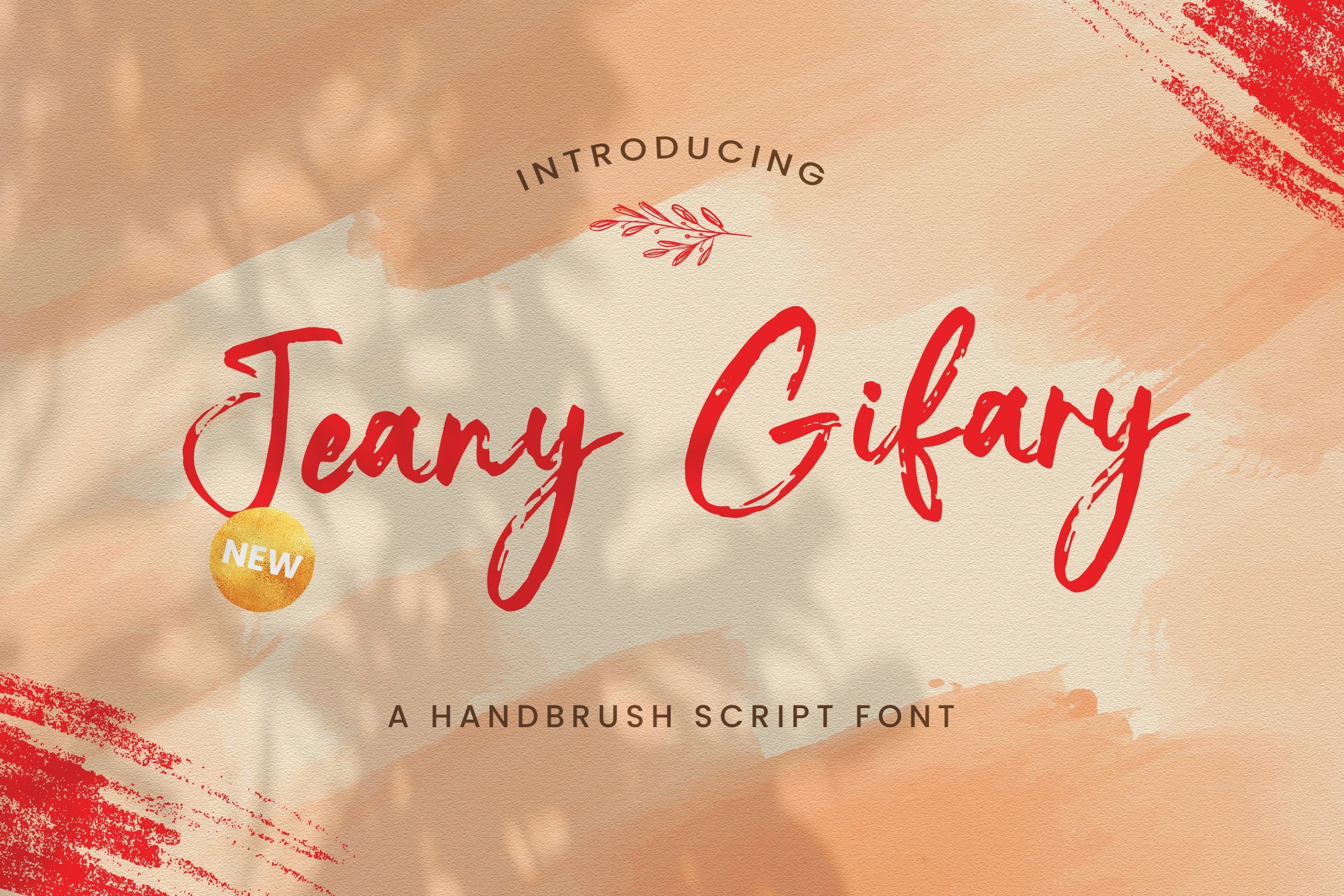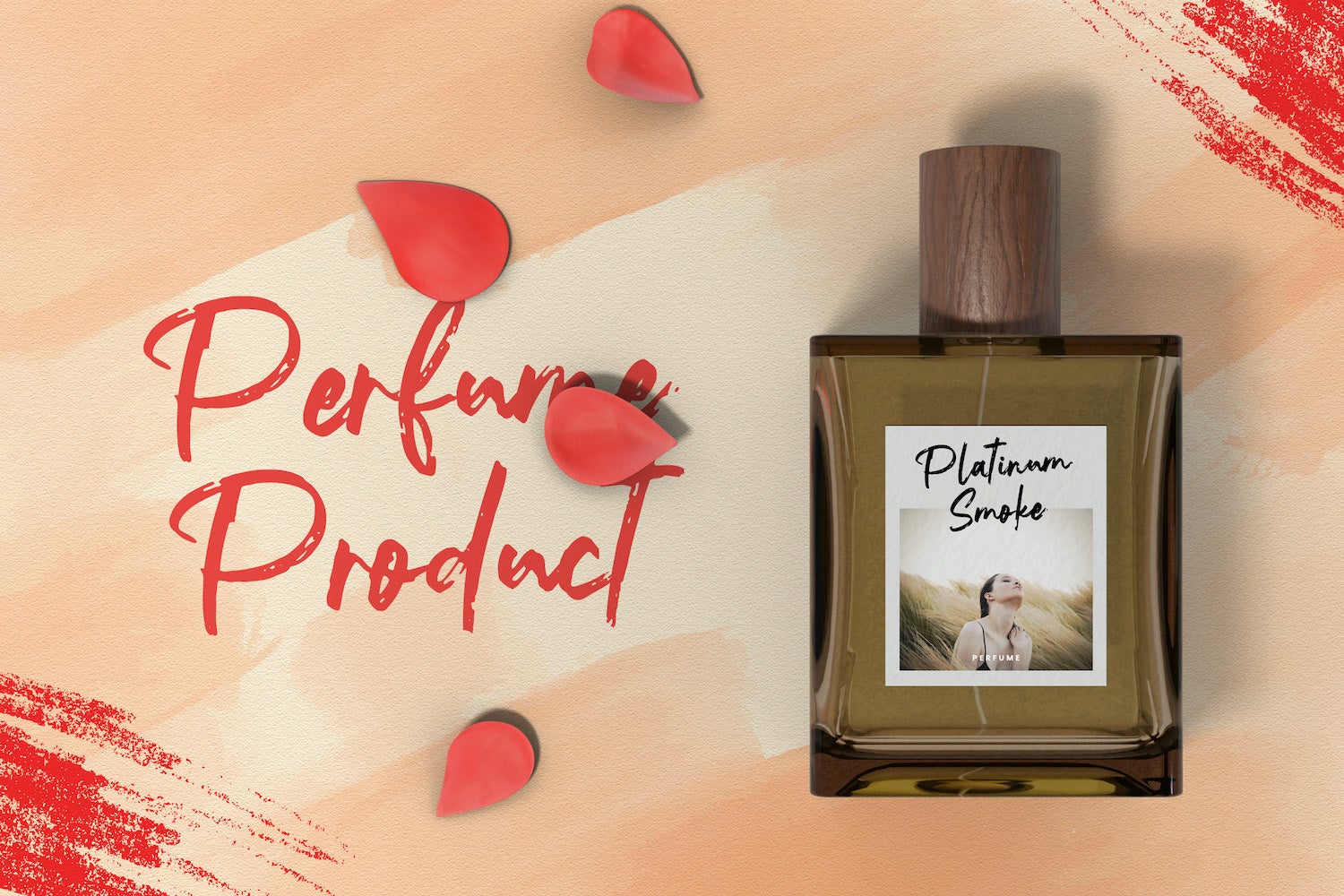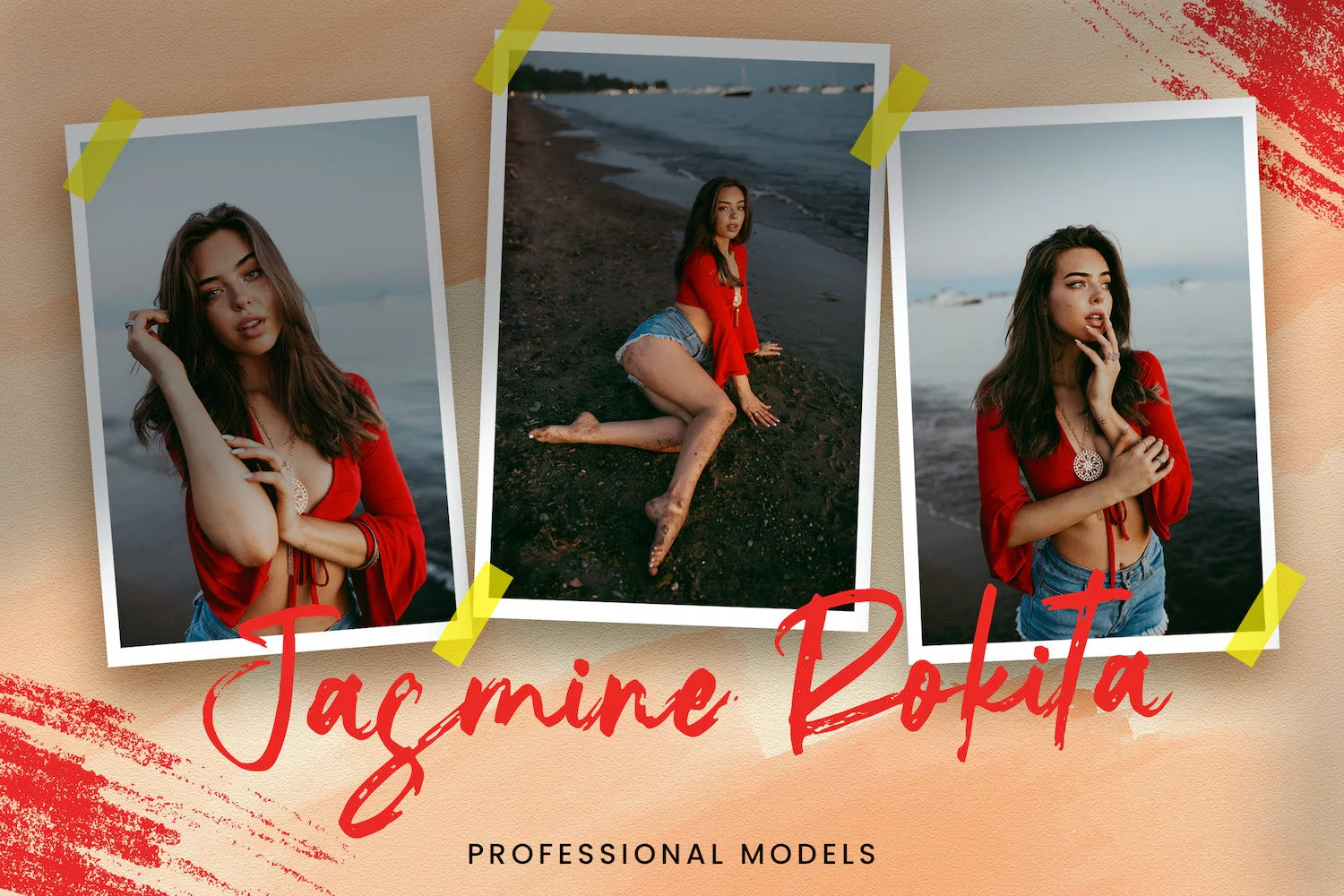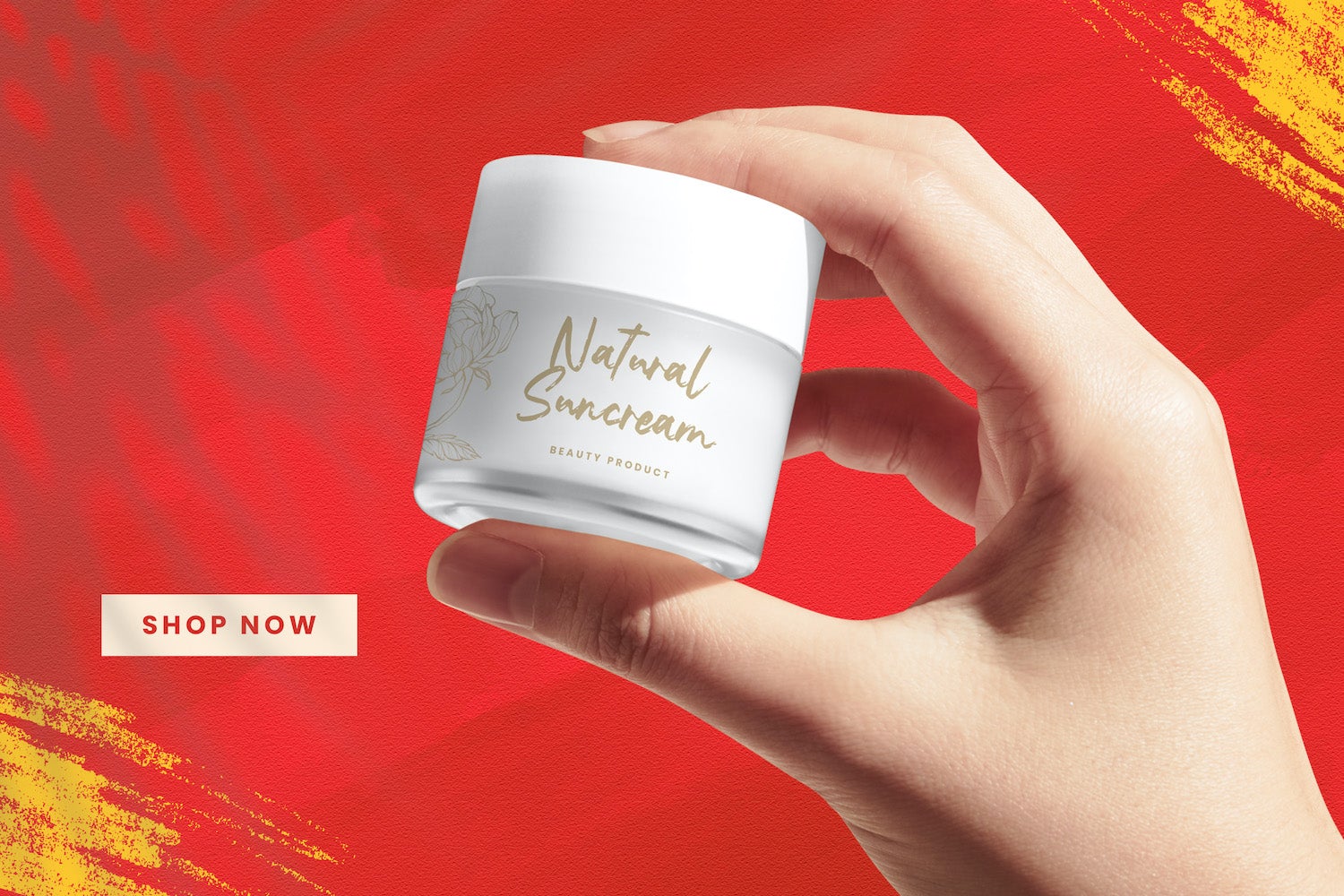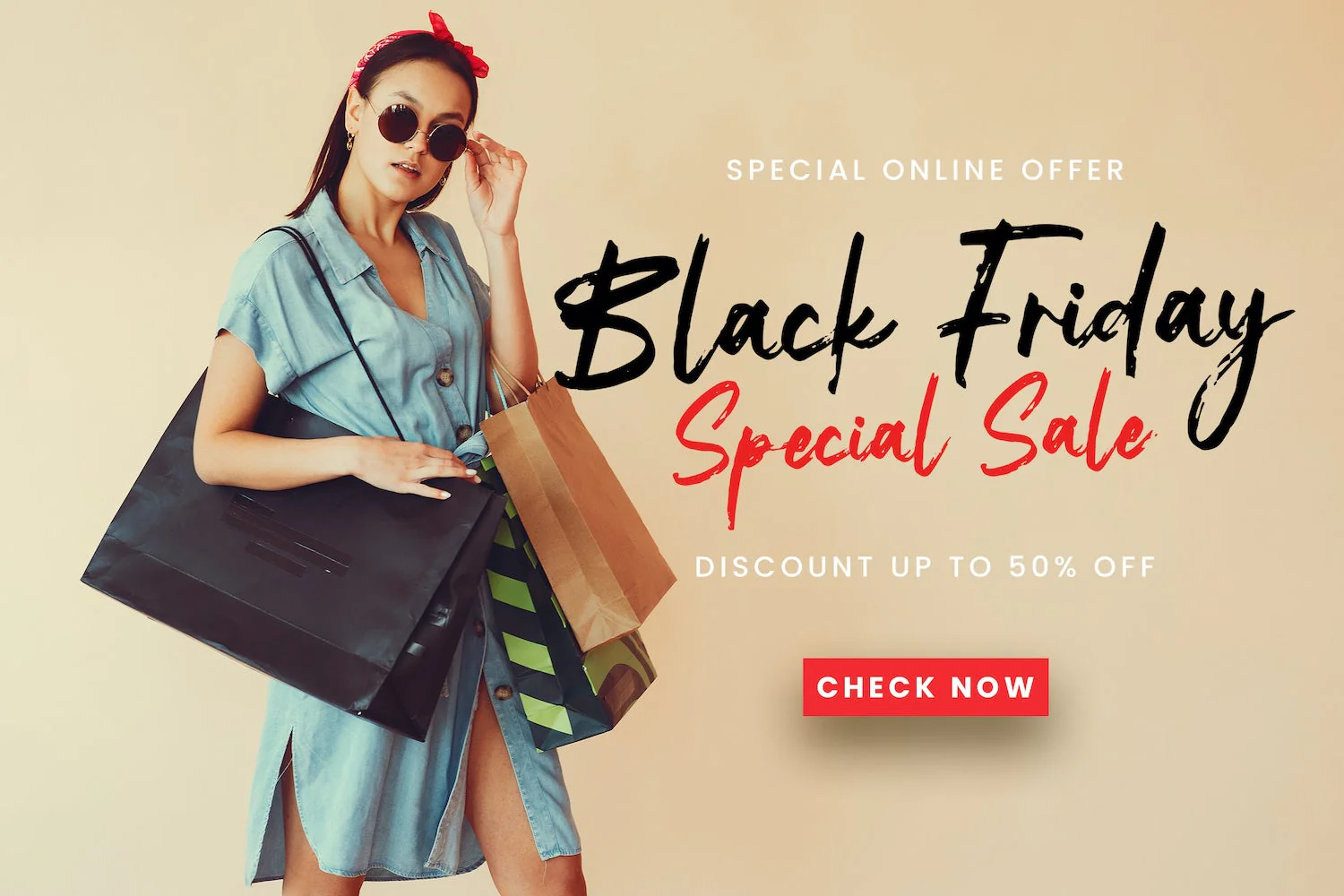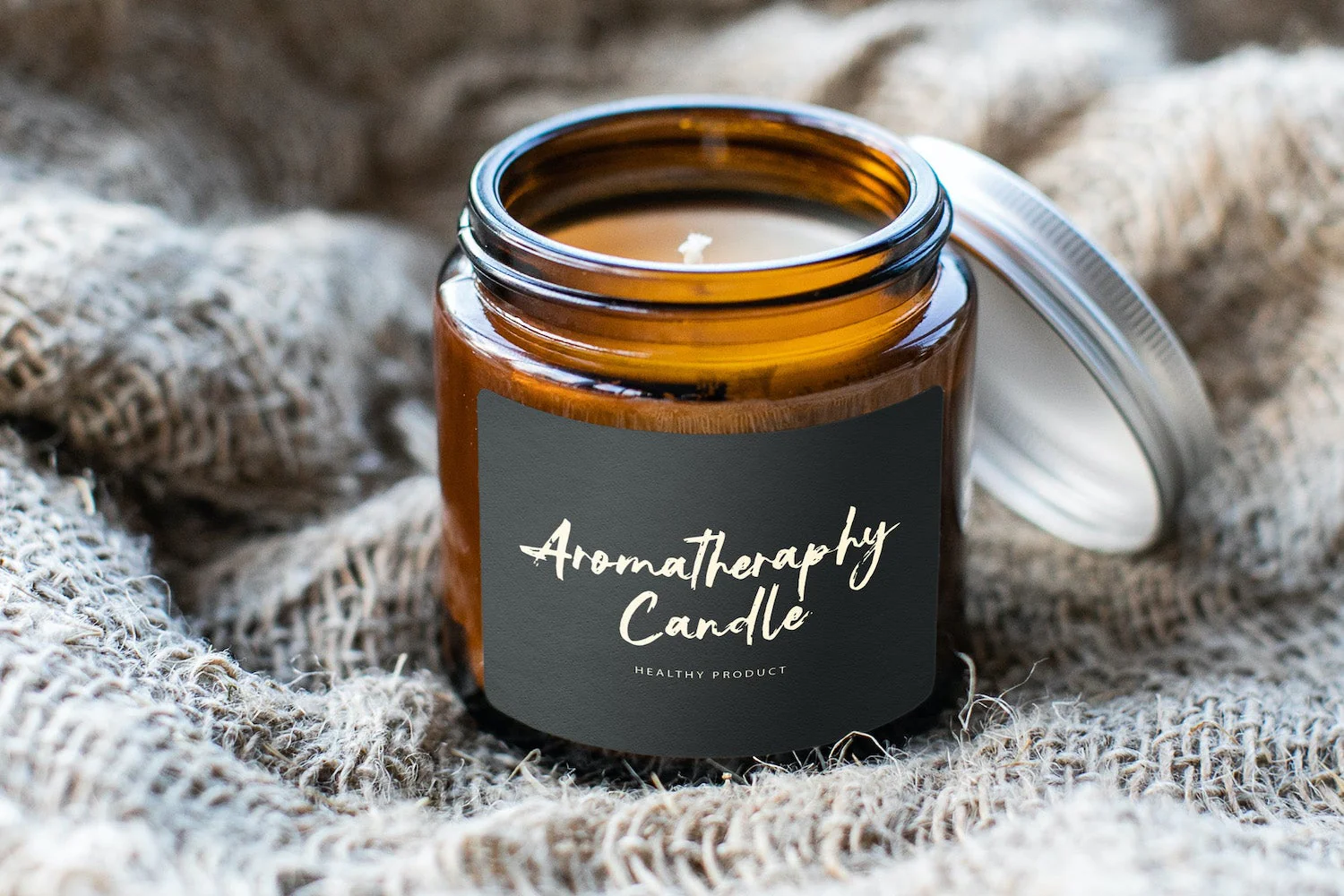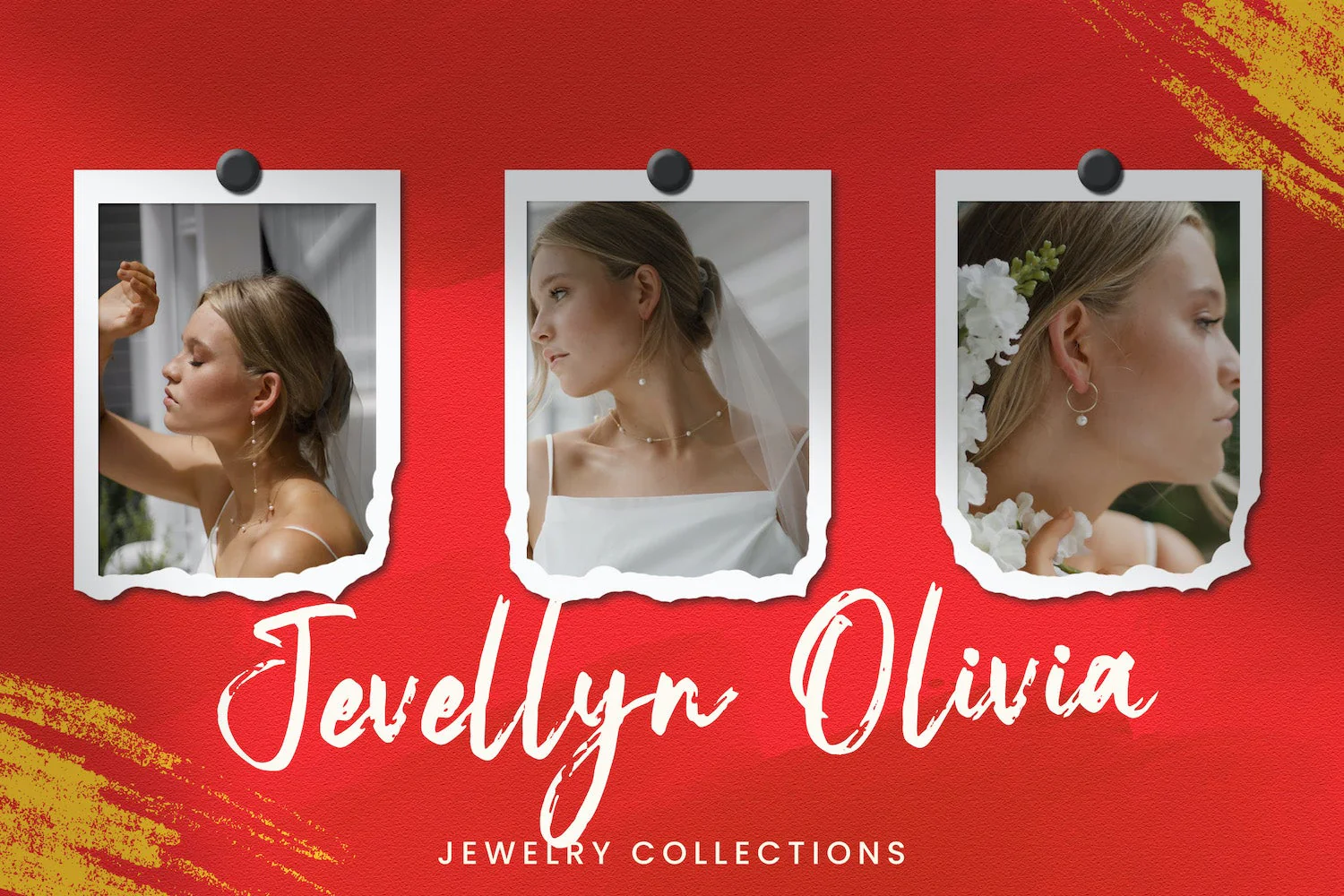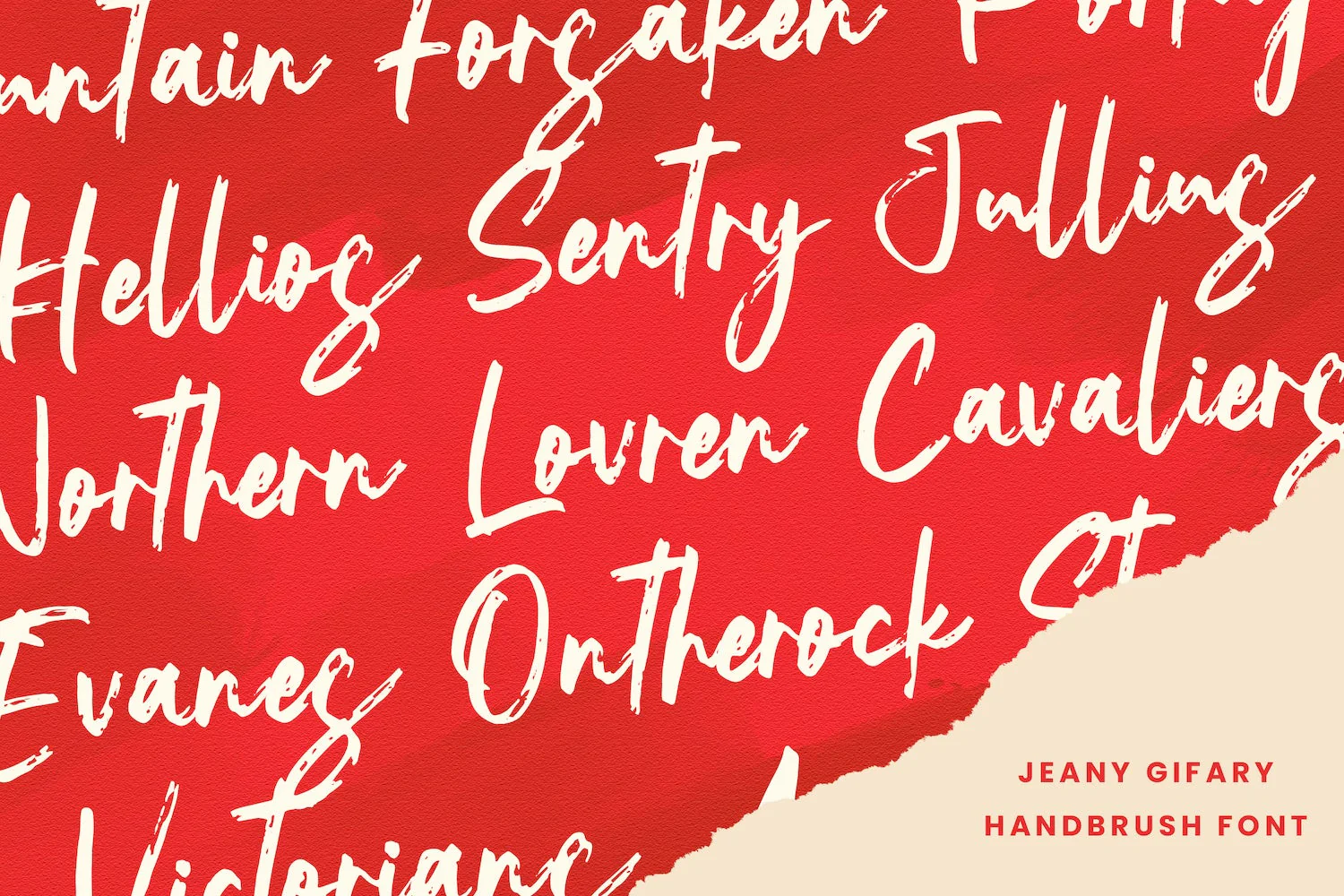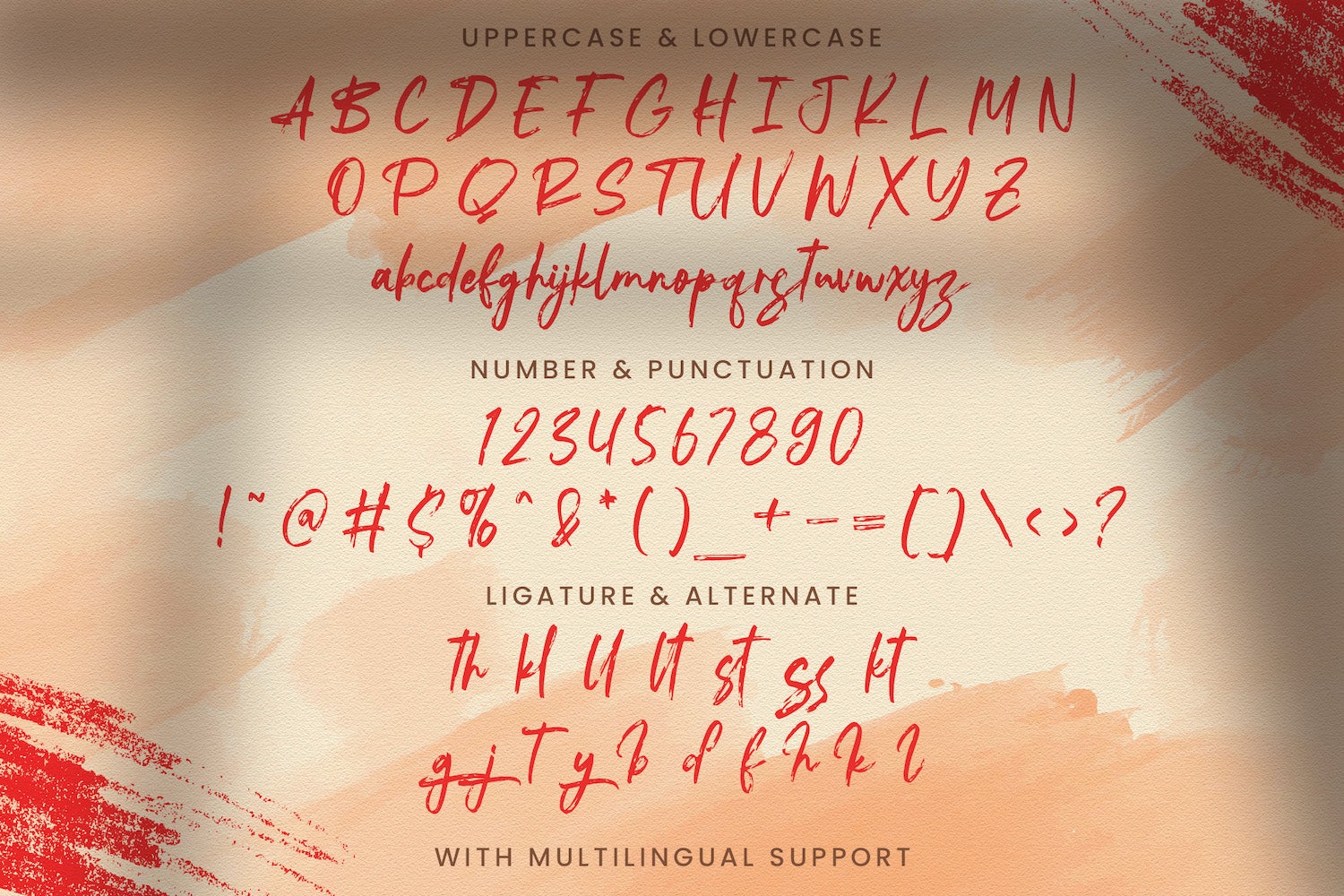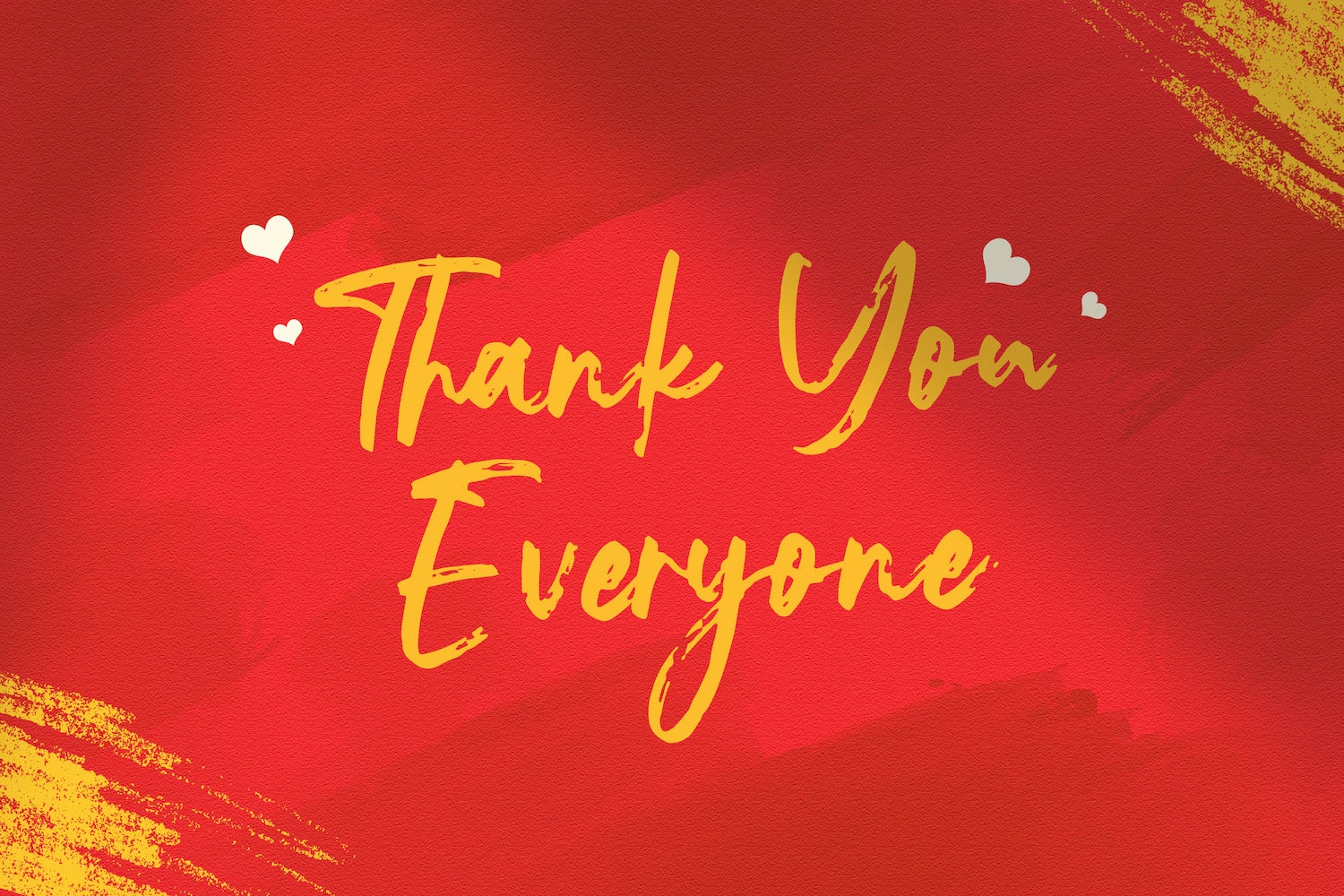
Jeany Gifary - Textured Brush Font
Introducing Jeany Gifary - Textured Brush Font
Jeany Gifary is a textured handbrush font. Get inspired by its unique and beautiful style and add it to your favorite designs!
Introducing Jeany Gifary - Textured Brush Font
Jeany Gifary is a textured handbrush font. Get inspired by its unique and beautiful style and add it to your favorite designs!